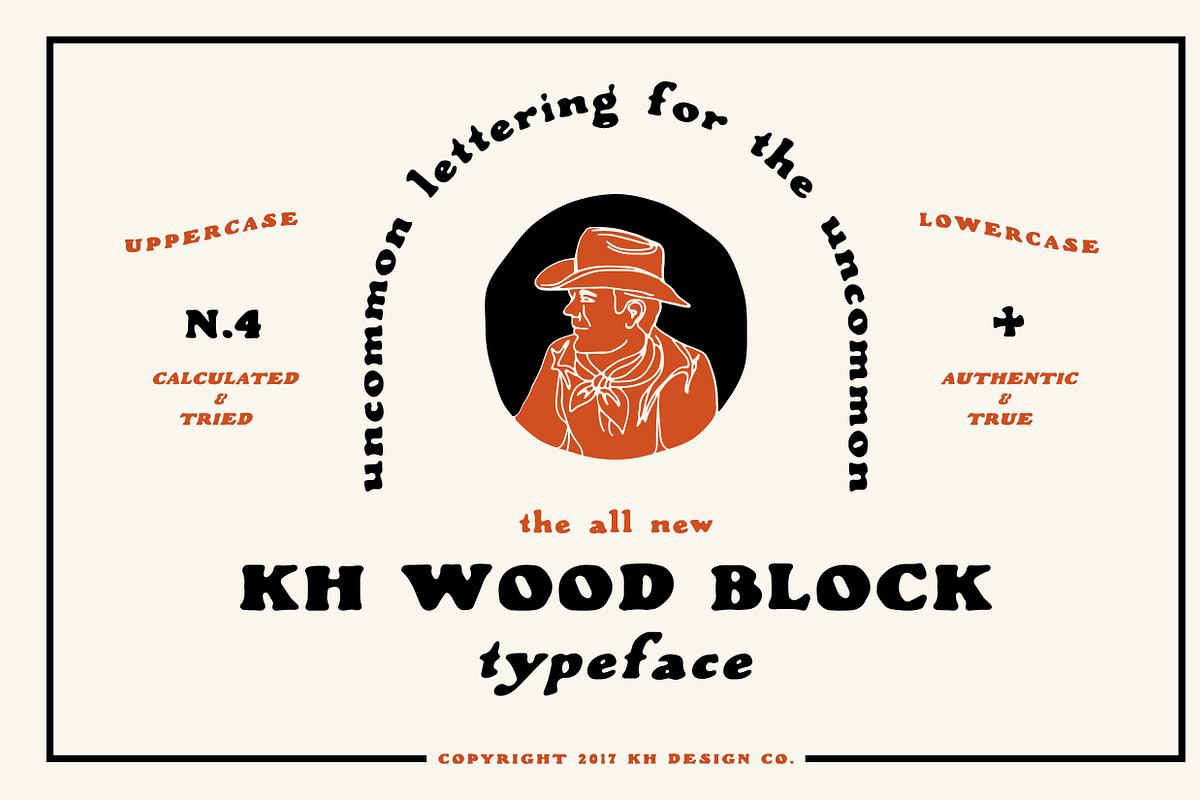
The KH WOOD BLOCK Font Free Download is a bold and striking display font with a rustic, blocky design inspired by the texture of wood. Its strong, geometric letterforms make it ideal for creating impactful logos, posters, headlines, and branding materials. The solid, rugged appearance of this font gives your designs a grounded, earthy feel, perfect for projects with a natural, outdoor, or vintage theme. Whether you're designing for construction, outdoor adventures, or unique branding, KH WOOD BLOCK Font will give your typography a sturdy and professional edge. Please note, for commercial use, a license purchase is required. However, you can easily download the KH WOOD BLOCK Font Free Download for free for personal use and explore its creative potential. Download the KH WOOD BLOCK Font Free Download today and add a powerful, earthy touch to your designs.